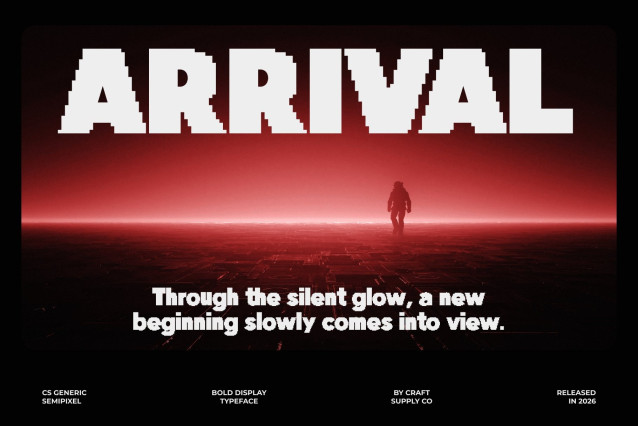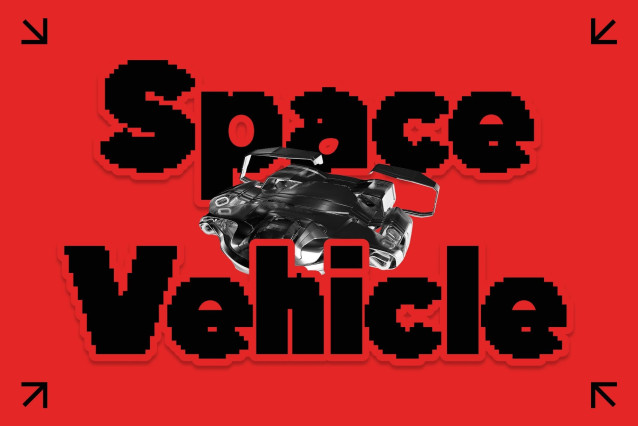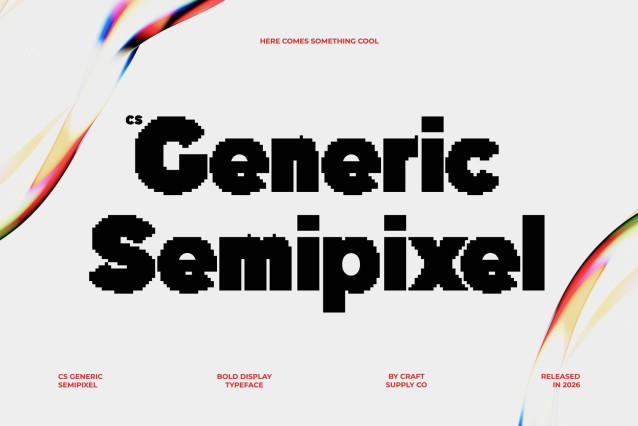
CS Generic Semipixel – Bold Display Sans Serif Font: Where Geometric Precision Meets Futuristic Smoothness
Striking Geometric Forms with Modern Digital Energy
This is a bold display sans serif font designed to command attention through striking geometric forms and expressive modern shapes. Its powerful structure creates a confident and highly impactful visual presence, making it perfect for layouts that demand clarity, strength, and futuristic style. Every character feels sharp, energetic, and intentionally crafted for contemporary visual communication.
Semipixel Design with Smooth Pixel Aesthetics
This font offers a smoother appearance than traditional rigid pixel fonts. The semipixel construction softens the geometry while preserving its retro-digital identity, resulting in a typeface that feels sleek, technological, and highly readable.